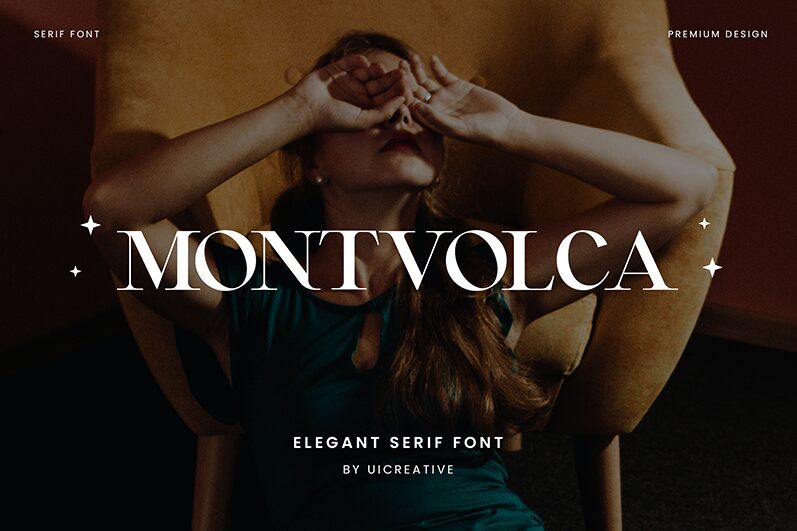
Montvolca
Montvolca font by UI Creative is an elegant and sophisticated modern serif font. Mixing refined aesthetics with classic undertones, the font creates a professional impression in both print and digital displays. The stylish characters are beautifully designed, complementing each other throughout the single weight typeface which is one of several available weights.
The font is free for use in displaying various formal and informal content such as quotes, product information, business cards, posters and banners. Packaging designs also benefit from this stylish typeface with book covers being another area of interest for Montvolca use. Clear yet artistic headlines format perfectly while short paragraphs can be unusually eye-catching to readers unfamiliar with the typeface's standout features.